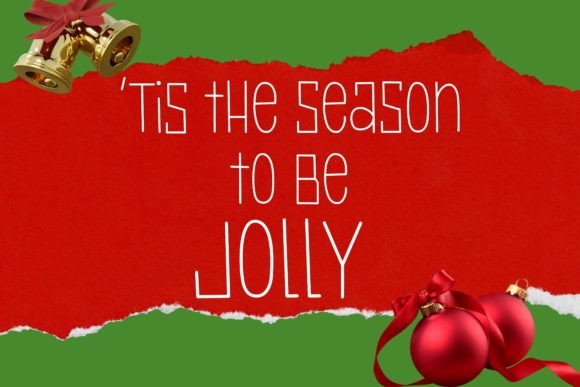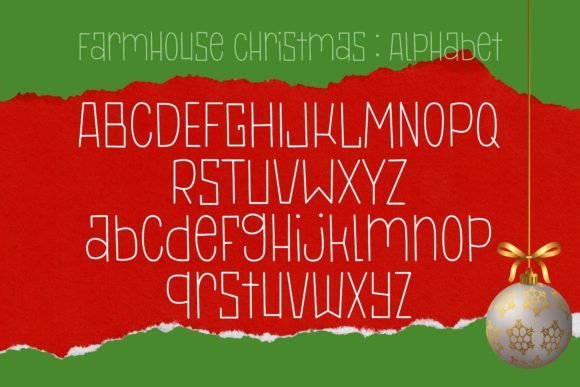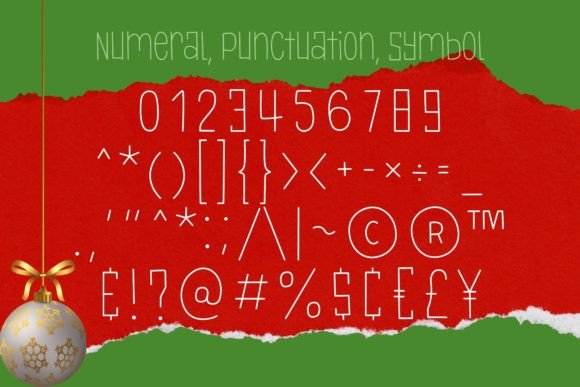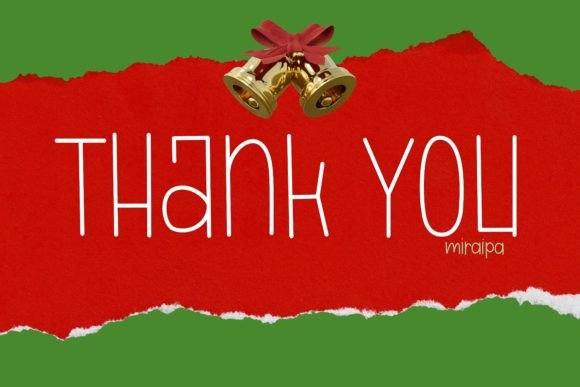
Deck the Halls with Farmhouse Christmas Font
Are you looking for a font that embodies the warmth and coziness of the holiday season? Look no further than the Farmhouse Christmas Font! This delightful handwritten sans serif font is perfect for designers and crafters who want to add a touch of rustic charm to their projects. In this article, we’ll dive into the features and benefits of Farmhouse Christmas Font, and explore how you can use it to create stunning holiday designs.
What is Farmhouse Christmas Font?
Farmhouse Christmas Font is a fun and friendly handwritten sans serif font that’s incredibly versatile. Its unique blend of rustic and modern elements makes it suitable for a wide spectrum of applications, from holiday cards and invitations to craft projects and digital designs. Whether you’re a designer, crafter, or DIY enthusiast, this font is sure to become a favorite in your collection.
Key Features of Farmhouse Christmas Font
- Handwritten sans serif font: Farmhouse Christmas Font features a beautiful handwritten script with a clean and modern sans serif design.
- Versatile: This font is perfect for a wide range of projects, from holiday cards and invitations to craft projects, digital designs, and more.
- Rustic charm: Farmhouse Christmas Font has a unique rustic charm that’s perfect for adding a touch of country flair to your designs.
- Easy to read: The font is incredibly legible, making it perfect for use in a variety of applications, from large headings to small body text.
Uses for Farmhouse Christmas Font
Farmhouse Christmas Font is incredibly versatile, and can be used in a wide range of projects, including:
- Holiday cards and invitations: Create beautiful and unique holiday cards and invitations with Farmhouse Christmas Font.
- Craft projects: Use Farmhouse Christmas Font to add a personal touch to your craft projects, such as scrapbooking, woodworking, and sewing.
- Digital designs: Farmhouse Christmas Font is perfect for use in digital designs, such as social media graphics, blog posts, and website headers.
- Signs and displays: Use Farmhouse Christmas Font to create eye-catching signs and displays for your holiday events or promotions.
Tips for Using Farmhouse Christmas Font
Here are a few tips for getting the most out of Farmhouse Christmas Font:
- Experiment with sizes and colors: Farmhouse Christmas Font looks great in a variety of sizes and colors, so don’t be afraid to experiment and find the perfect combination for your project.
- Pair with complementary fonts: Farmhouse Christmas Font pairs beautifully with a variety of complementary fonts, such as serif fonts and script fonts.
- Add decorative elements: Consider adding decorative elements, such as holly leaves or snowflakes, to give your designs an extra festive touch.